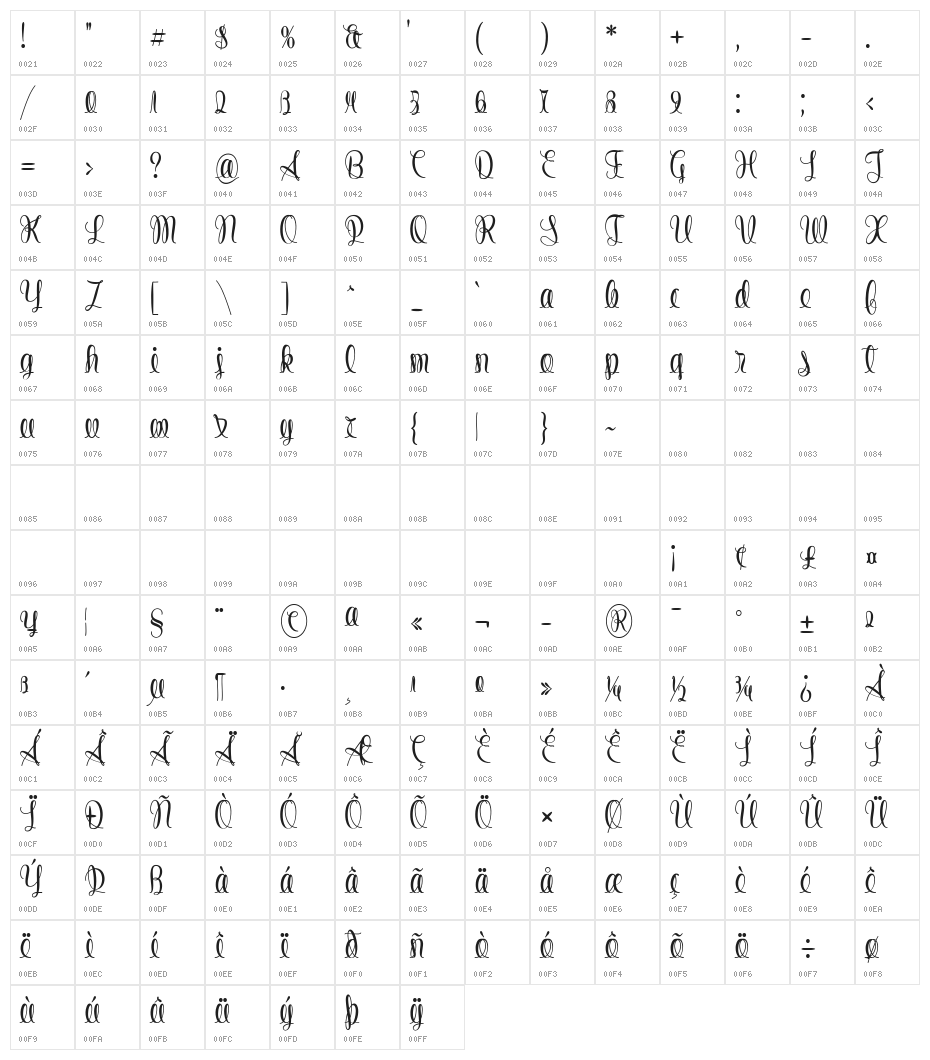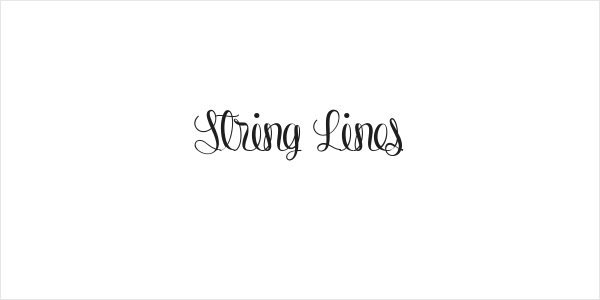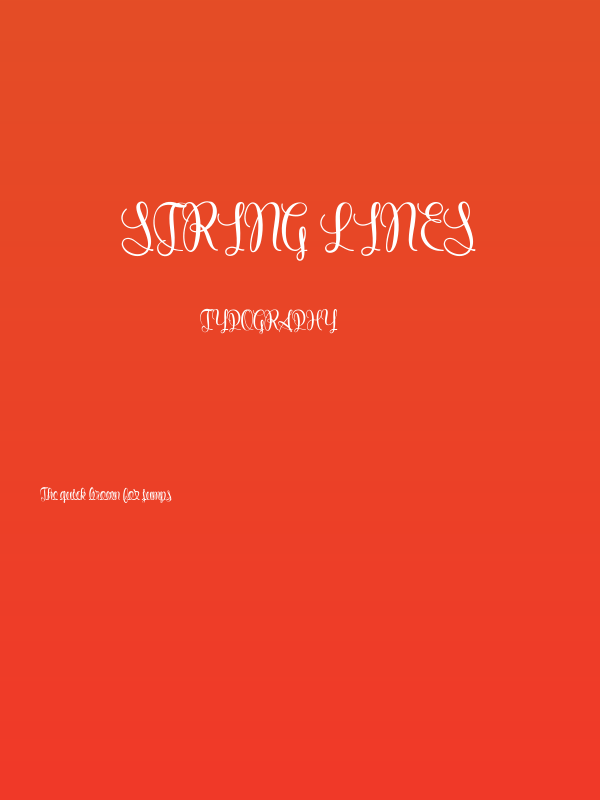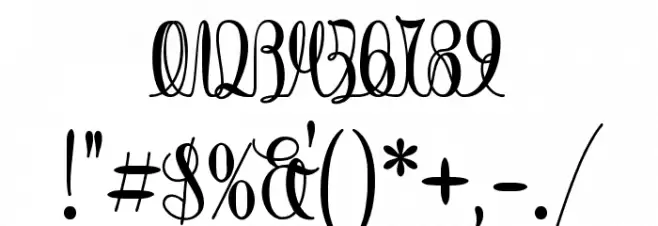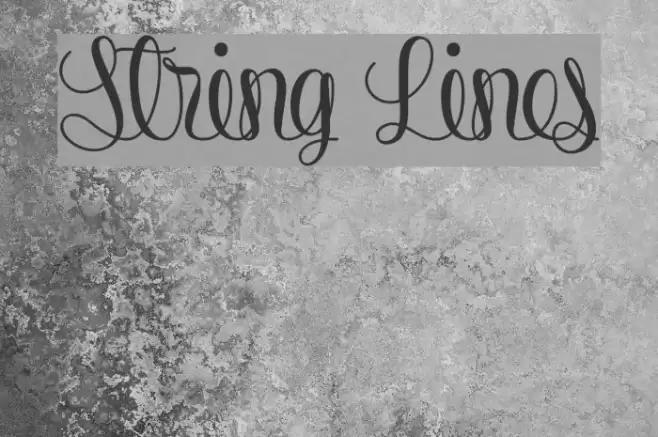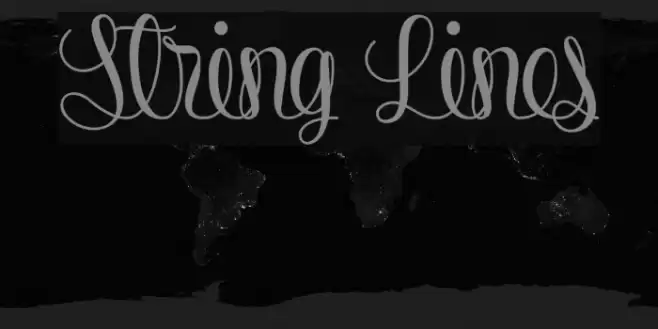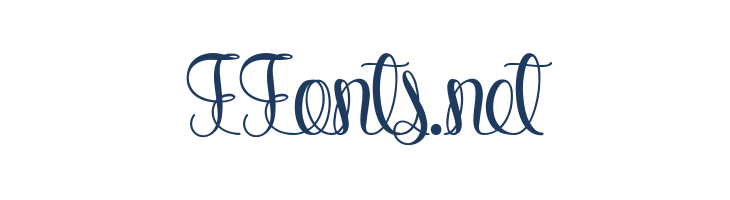
String Lines Font
String Lines Description
This font features an elegant and flowing script style, characterized by its intricate loops and swirls. Each letter is crafted with a sense of fluidity and grace, making it ideal for conveying a sense of sophistication and elegance. The uppercase letters are particularly ornate, with exaggerated curves and flourishes that add a decorative touch. The lowercase letters maintain a consistent style, with smooth connections between characters, enhancing the overall cohesiveness of the text. The numbers and special characters are designed to match the ornate style of the alphabet, ensuring a harmonious appearance across all elements. This font is perfect for projects that require a touch of elegance and artistic flair.
| Use Case | Logos, Invitations, Decorative text |
| Proposed Projects | Wedding invitations, luxury branding, elegant stationery, artistic posters. |